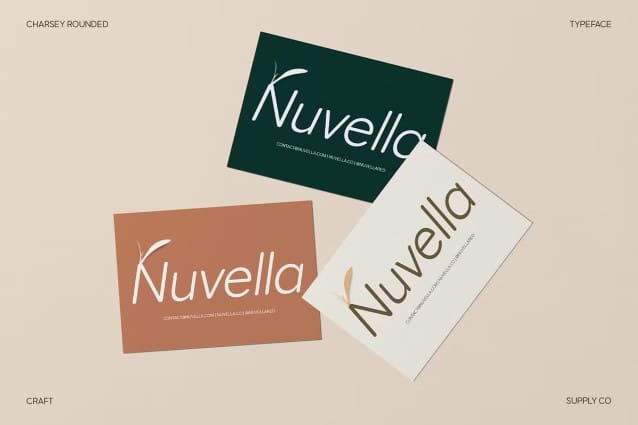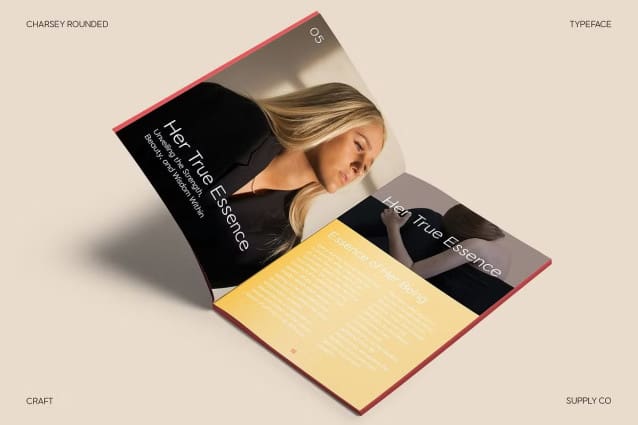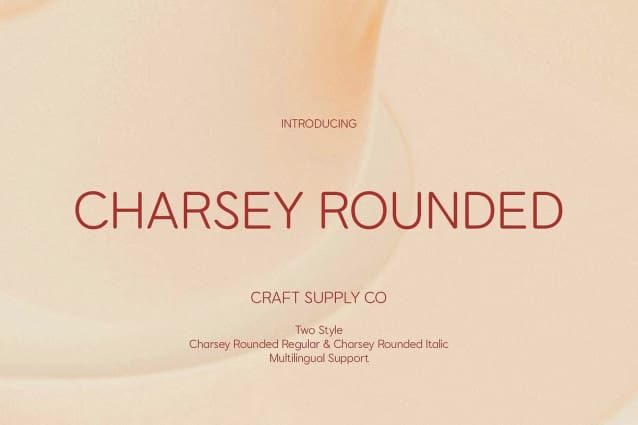
Charsey Rounded Font
Charsey Rounded Font is a modern sans-serif font that combines the clean, precise structure of geometric shapes with the warmth of rounded edges. This harmonious blend offers a perfect balance between order and approachability, making it a versatile choice for a wide range of design applications. The geometric foundation ensures a sense of clarity and modernity, while the soft, rounded curves add a friendly and inviting touch to the overall appearance.
Contemporary and Minimalistic Design With its minimalist design, Charsey Rounded exudes a contemporary aesthetic that works seamlessly in today’s fast-paced design world. Its simple yet effective form ensures that it stands out in a clean, refined manner, making it an excellent option for brands and designs that require a modern and polished look. Whether used in branding, logos, or digital interfaces, this font delivers clarity without sacrificing style.
Warm and Friendly Appeal The rounded edges of Charsey Rounded soften its otherwise precise structure, infusing the font with a sense of warmth and accessibility. This makes it perfect for creating designs that aim to connect with audiences on a personal level, such as lifestyle brands, user-friendly apps, or inclusive, welcoming interfaces. Its approachable character adds an extra layer of friendliness to the clean, professional lines.